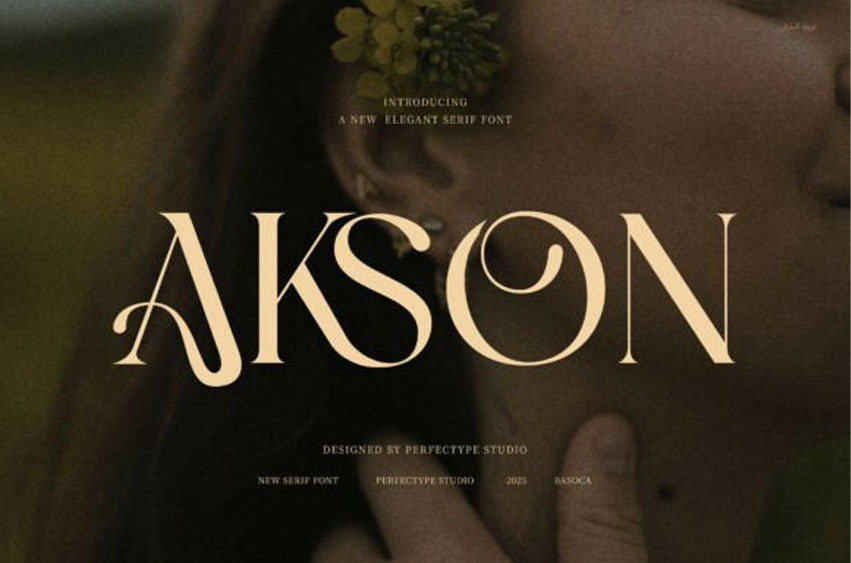
Akson Font
Akson Font Elegant Serif Font combines modern style with timeless elegance, making it an ideal choice for various branding projects. Designed with proportional shapes, this serif font adapts perfectly to all your branding needs. Additionally, Akson features functional ligatures that create smooth, natural letter connections, which enhance the overall visual appeal and readability of your designs.
This versatile serif font works seamlessly across multiple applications such as logos, websites, magazines, layouts, and advertisements. Whether you’re designing for boutiques, food products, or corporate branding, Akson provides a refined look that elevates any project. The clean yet sophisticated style gives your text a professional and attractive appearance, which is essential for making a lasting impression.
Furthermore, Akson’s balanced proportions and elegant details ensure harmony and consistency in every design. It supports both digital and print formats, so you can confidently use it in a wide range of media without losing its charm. For companies aiming to communicate sophistication with clarity, this font is an excellent asset.